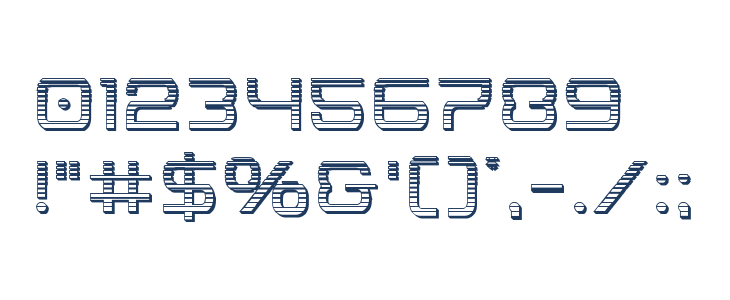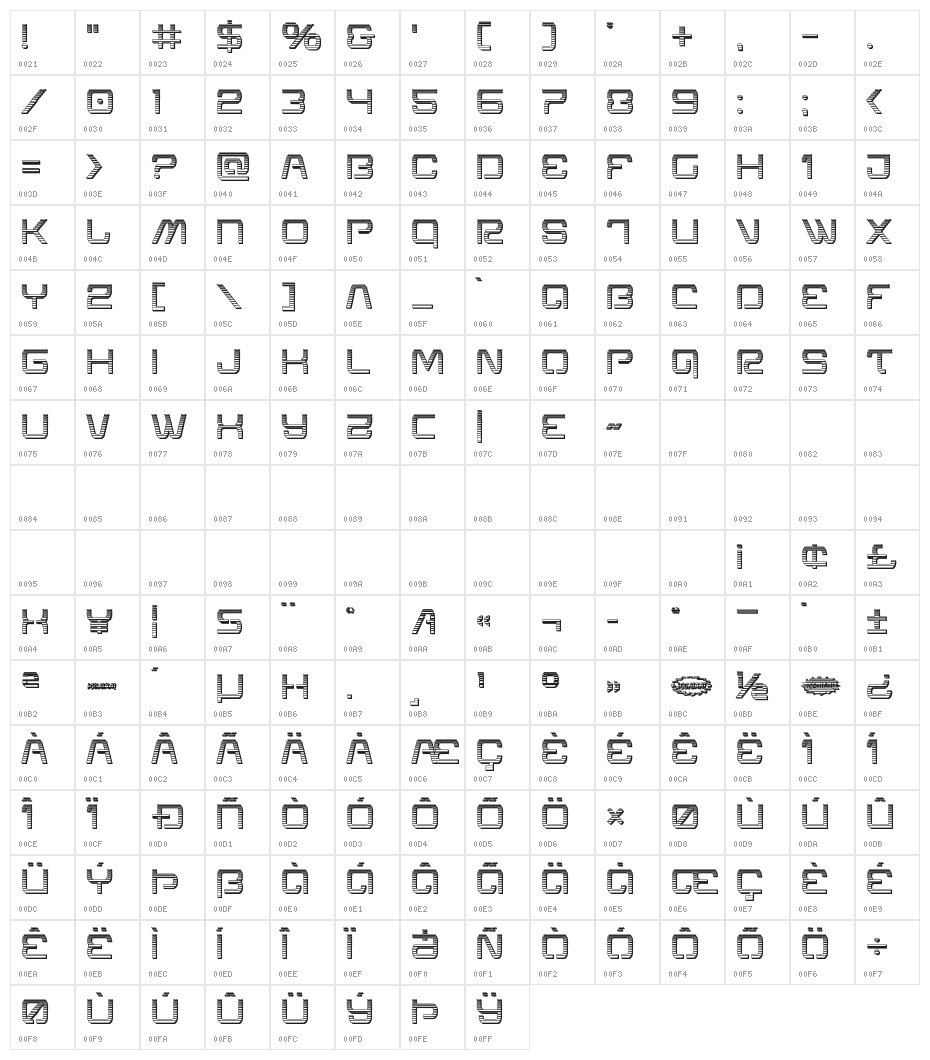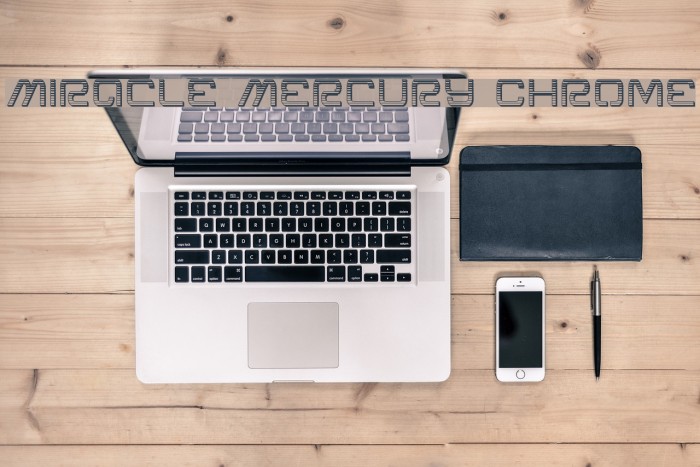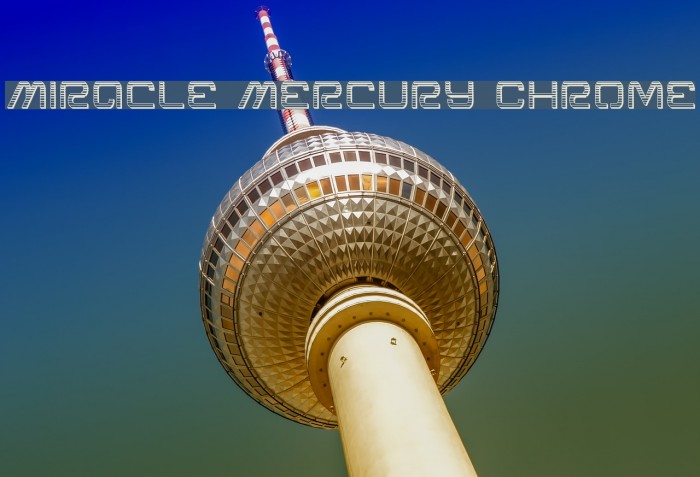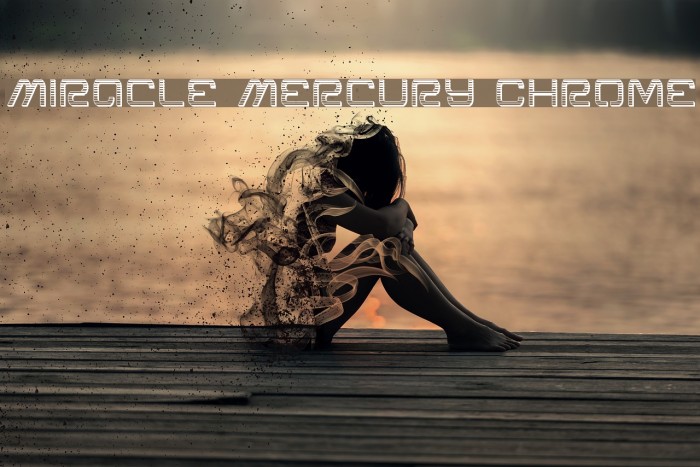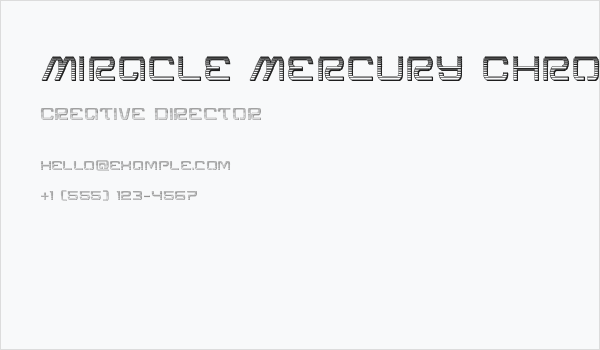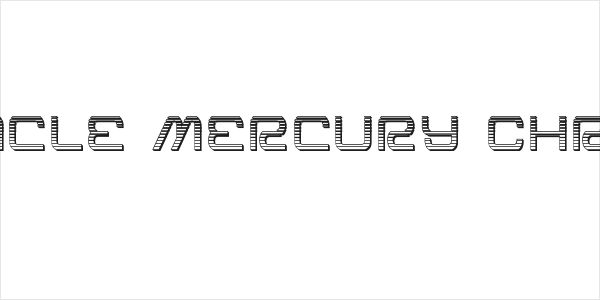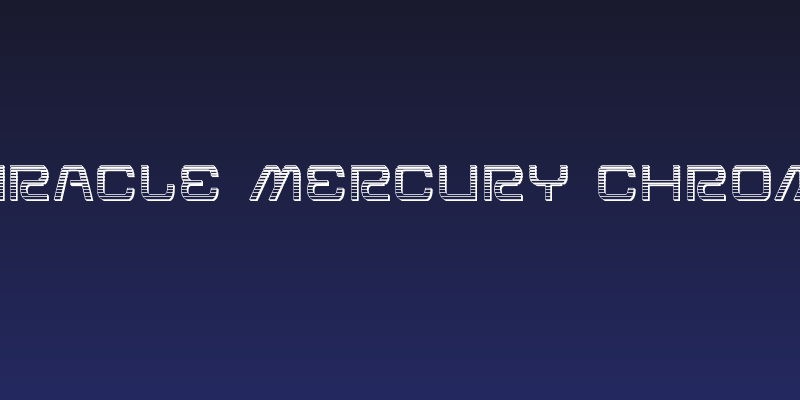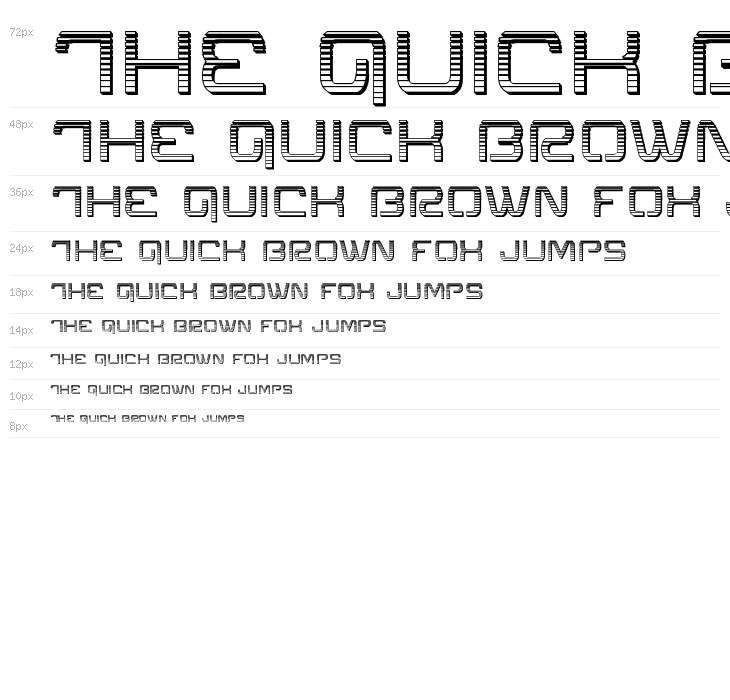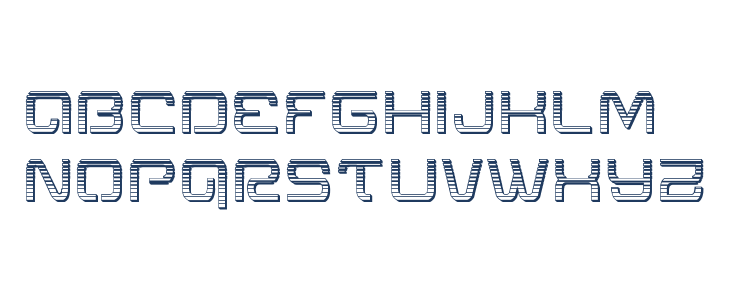
Miracle Mercury Chrome Font
Miracle Mercury Chrome Description
This font features a futuristic and industrial design, characterized by its unique striped pattern within each character. The letters are bold and geometric, with a distinct three-dimensional effect that gives them a chrome-like appearance. The uppercase and lowercase letters maintain a consistent style, with angular edges and a mechanical feel. Numbers and special characters follow the same design principles, ensuring uniformity across all glyphs. The font's aesthetic is both modern and retro, making it suitable for projects that require a standout, tech-inspired look.